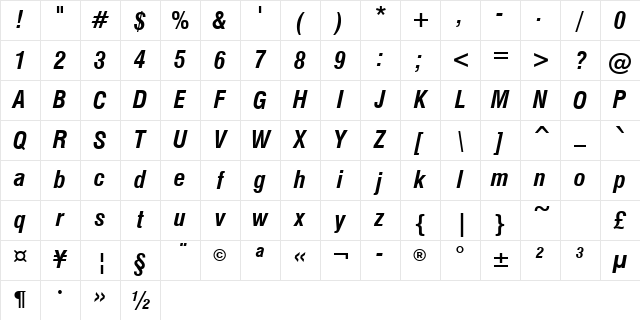
Swis721Greek Cn BT Bold Inclined
Style: Bold Inclined
Design Context for Swis721Greek Cn BT
Swis721Greek Cn BT is a composed and adaptable typeface that performs quietly and consistently across a wide range of design contexts. Its bold stroke weight gives it real presence on the page.